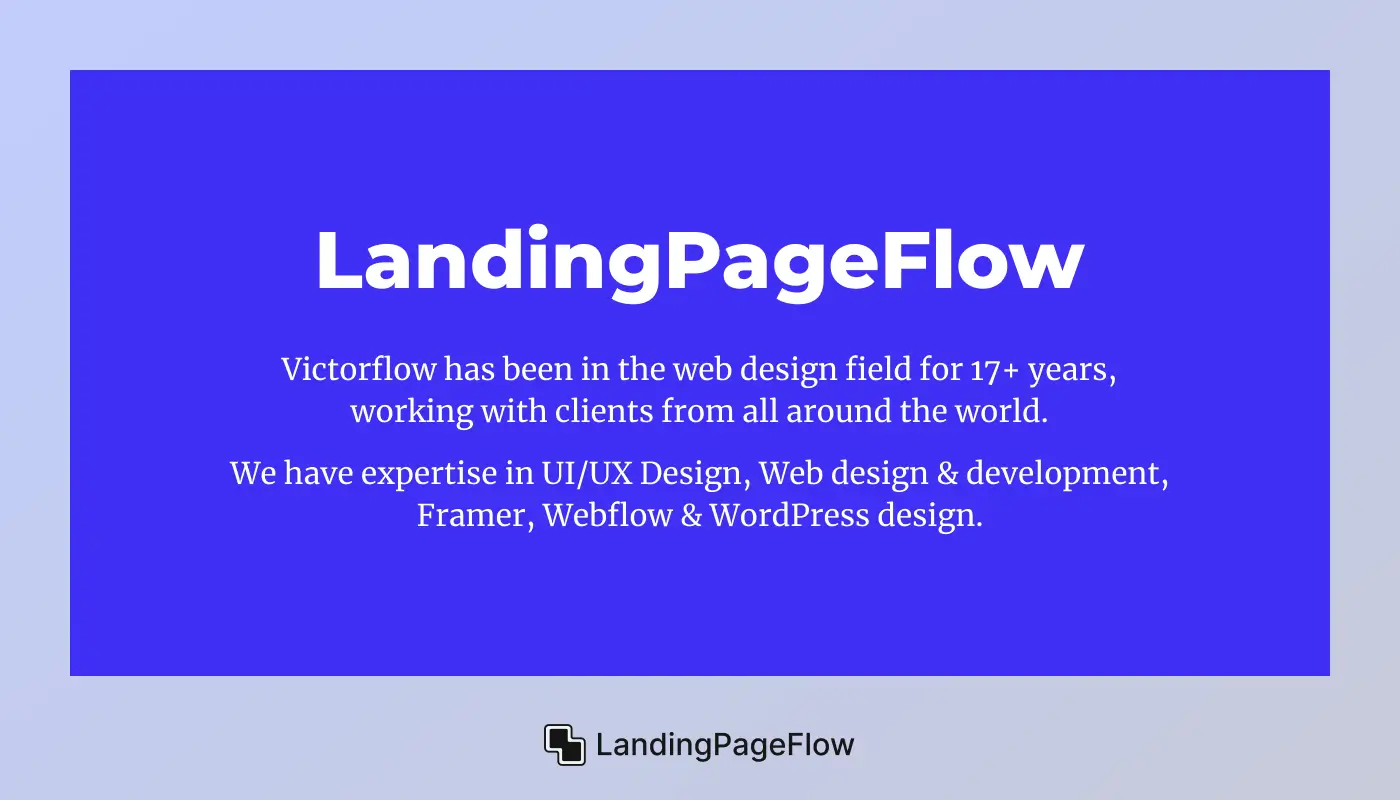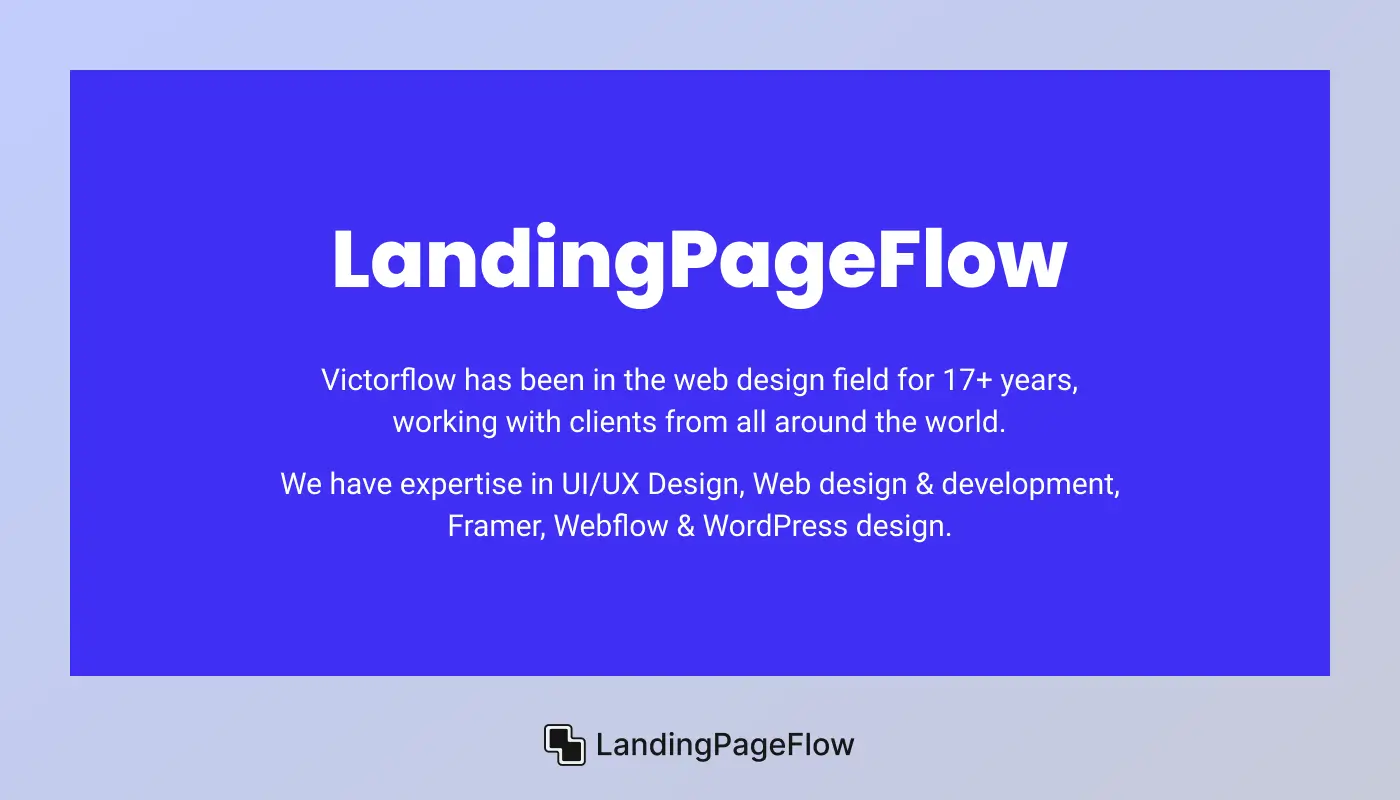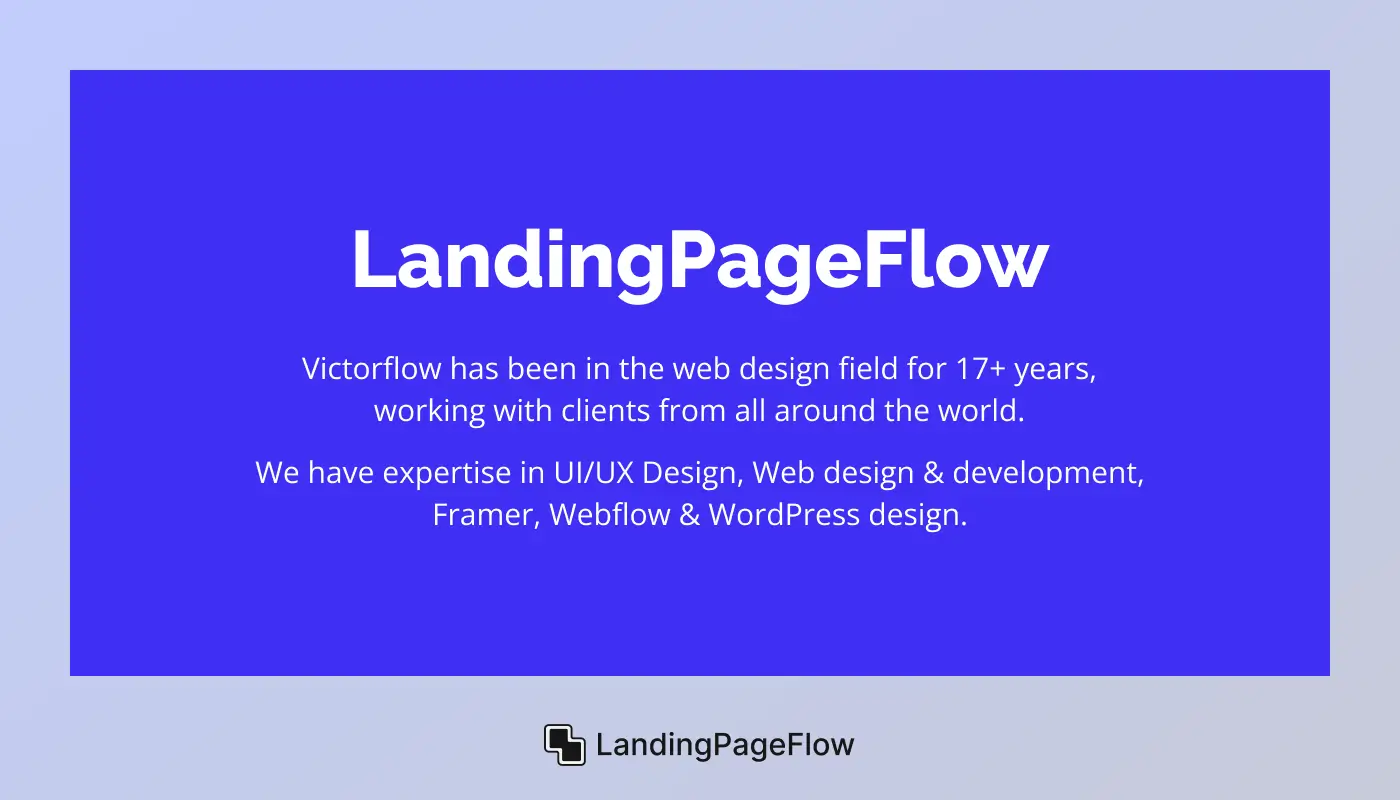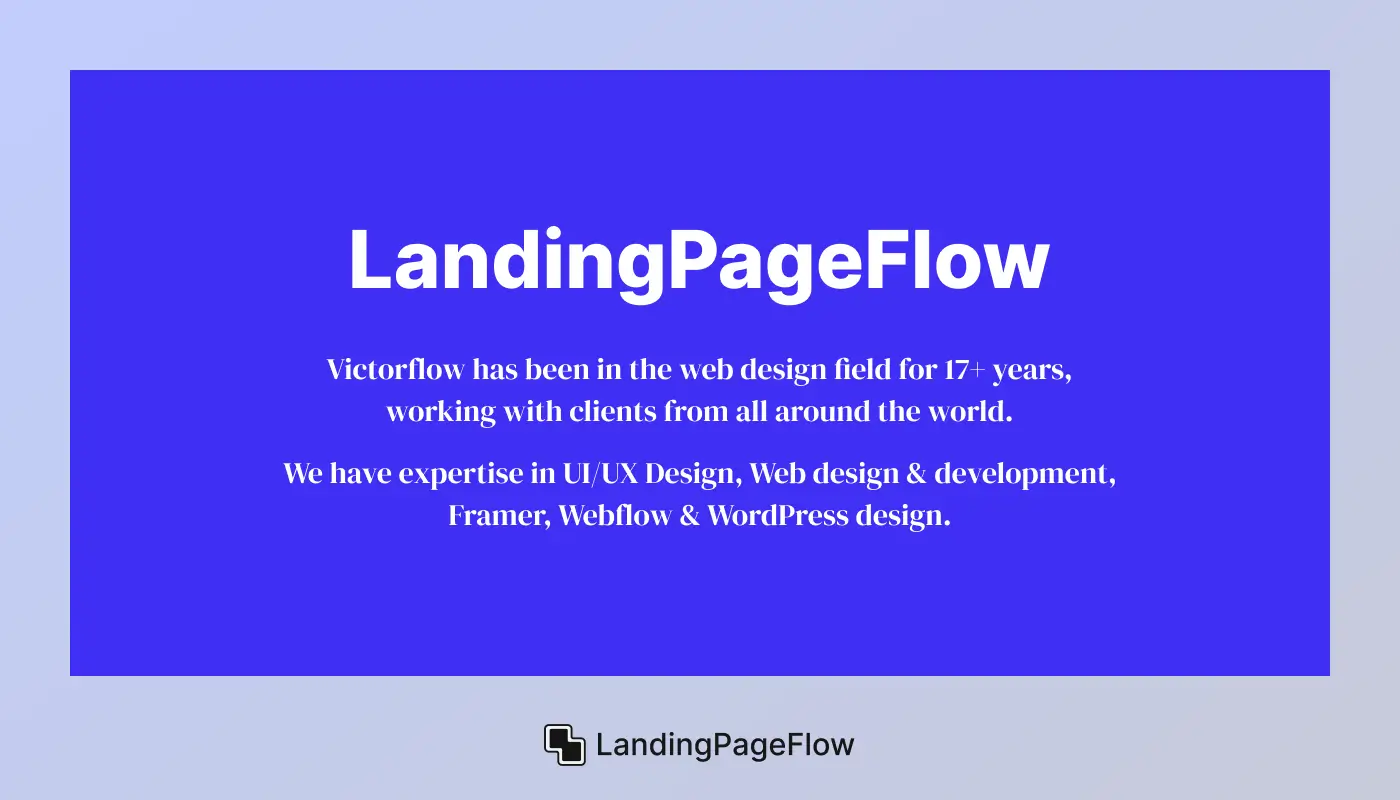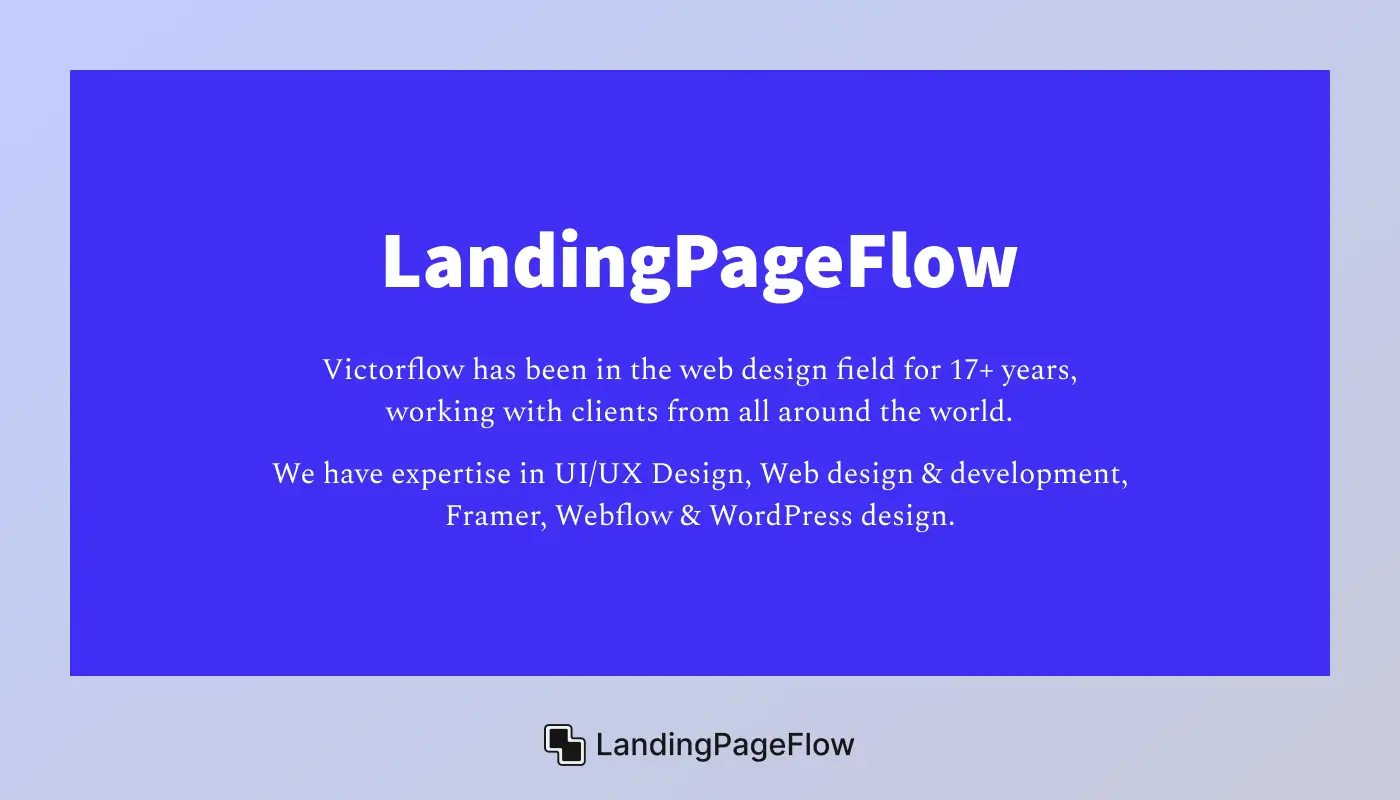
20+ Beautiful Google Font Pairings For 2026 Websites
Selecting the right Google Font pairings can dramatically influence how visitors perceive your brand, absorb your content, and navigate your site. In a fast-evolving web landscape, typography is no longer just about looks - it plays a central role in UX, readability, and conversion rates.
Smart font combinations bring balance to your design, guiding users through headlines, body text, and CTAs with clarity and style.
In 2026, clean, mobile-first design demands font pairings that are both visually appealing and technically sound.
From sleek sans-serifs to expressive serifs, using free Google Fonts offers flexibility without compromising on performance or design integrity.
Inside this curated list, you’ll find 20+ Google Font pairings that are perfect for a wide range of websites - eCommerce, blogs, landing pages, and more. Each combo is tested for harmony, hierarchy, and legibility.
1. Why Font Pairing Matters in a Website?
Effective font pairing plays a vital role in shaping how users experience and interact with your website. Typography sets the tone before a single word is read - it silently communicates brand personality, professionalism, and attention to detail.
Strong Google Font combinations improve readability, enhance visual hierarchy, and guide users naturally through headlines, subheadings, and body text.
Great font pairings help separate key content sections, create contrast, and add rhythm to your page layout.
In 2026, as design trends prioritize minimalism, clarity, and accessibility, the importance of well-chosen typography has never been greater. The right combination isn’t just aesthetic - it’s a strategic choice that supports your goals and increases conversion potential.
2. What Makes a Good Google Font Pairing?
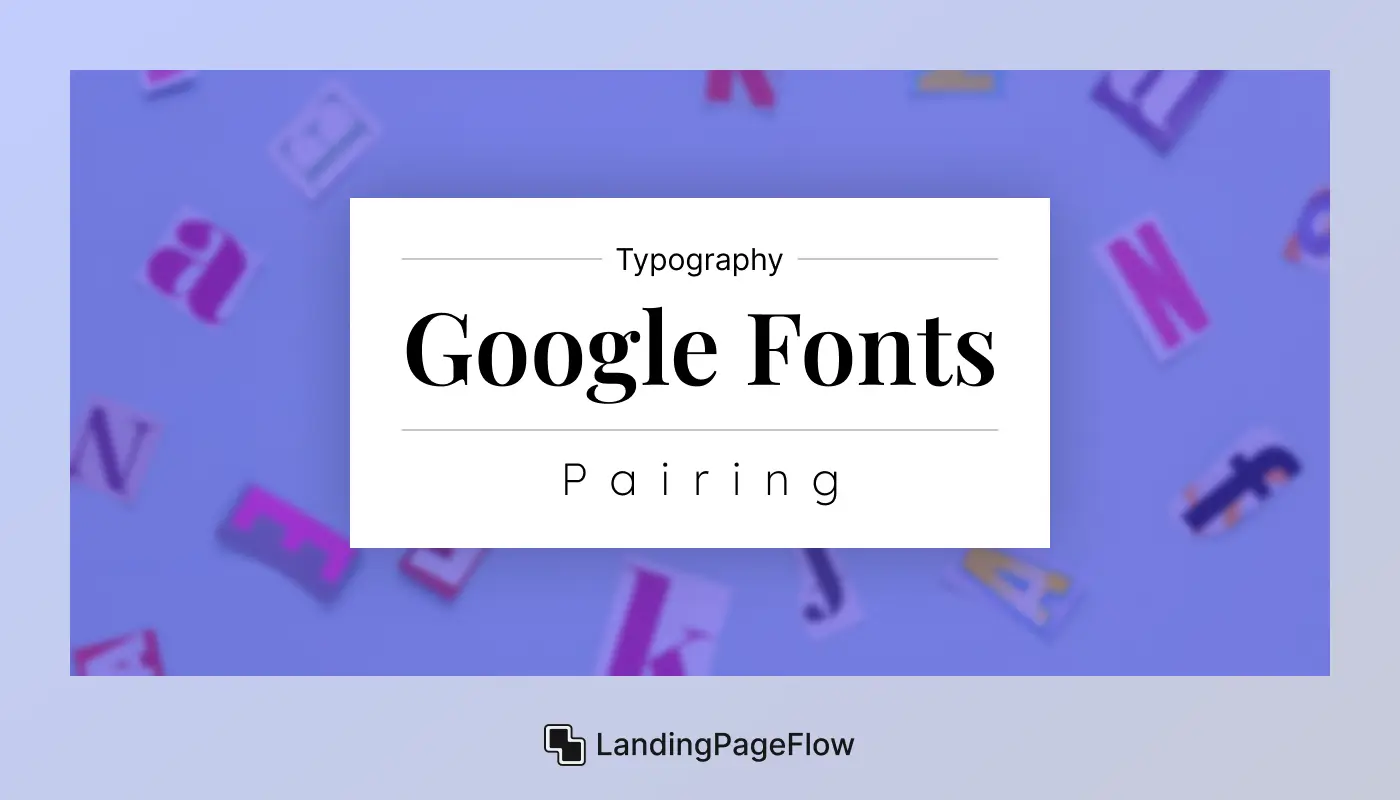
Creating a visually appealing website starts with strong typography choices. A thoughtful Google Font pairing adds structure, clarity, and emotion to your content. It helps establish brand tone, improve readability, and guide users through your layout with ease. The best combinations feel effortless but are crafted with purpose.
- Balance contrast and harmony
Choose fonts that look distinct but work together in tone, structure, and personality. - Mix font styles wisely
Pair a serif font (for body) with a sans-serif font (for headings) to establish a clear visual hierarchy. - Reflect your brand voice
Select fonts that match your brand identity - elegant, modern, playful, or professional. - Consider readability across devices
Opt for font pairs that maintain clarity and legibility on mobile, tablet, and desktop screens. - Avoid visual conflict
Don’t use fonts that are too similar or clash in style, spacing, or letter weight. - Use consistent font weights and sizing
A good pairing respects typographic rhythm and keeps layouts visually balanced.
3. Key Features of Google Fonts
Google Fonts offers web designers and developers a fast, free, and reliable solution for quality typography. With its ever-growing library and easy integration, it remains a top choice for 2026 websites. Font pairing, loading performance, and customization all come built-in. Here’s what makes it a standout tool for web design:
Fonts display consistently on all major browsers and devices. - Font pairing suggestions
Browse recommended combinations to help you choose harmonious styles. - Performance-optimized delivery
Google’s CDN ensures fonts load fast, improving page speed and SEO. - Multiple weights and styles
Get full control over typography with bold, italic, thin, or extra-light options.
4. 20+ Beautiful Google Font Pairings Breakdown
1. Playfair Display & Lato
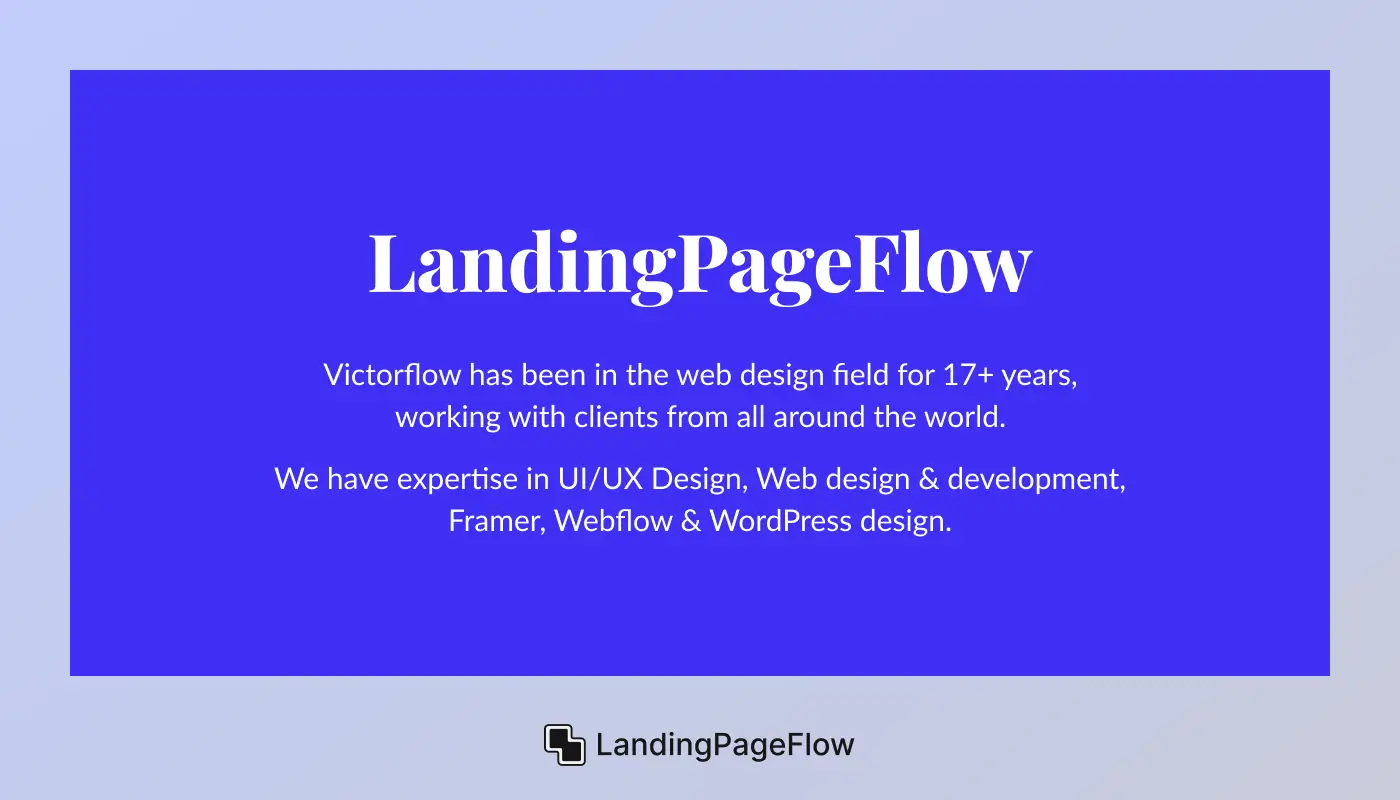
About Font
- Playfair Display is a high-contrast serif with elegant curves, perfect for stylish headlines and editorial designs.
- Lato is a clean, humanist sans-serif designed for versatility, offering excellent readability at small sizes.
Visual Flow
- Balanced contrast: Serif headlines stand out against modern body text for clear content sections.
- Clean hierarchy: Distinct font roles improve scanability and user navigation.
- Polished transitions: Smooth flow between titles and paragraphs creates a refined user journey.
5. Is it okay to mix two serif fonts or two sans-serifs?
While it is possible, mixing fonts from the same classification can reduce contrast. If done, ensure there's a clear difference in weight, size, or width to maintain structure.
6. Do font pairings affect SEO or performance?
Indirectly, yes. Good typography improves user engagement, time on site, and bounce rate, all of which can influence SEO. Use optimized, fast-loading fonts to avoid slowing down your site.